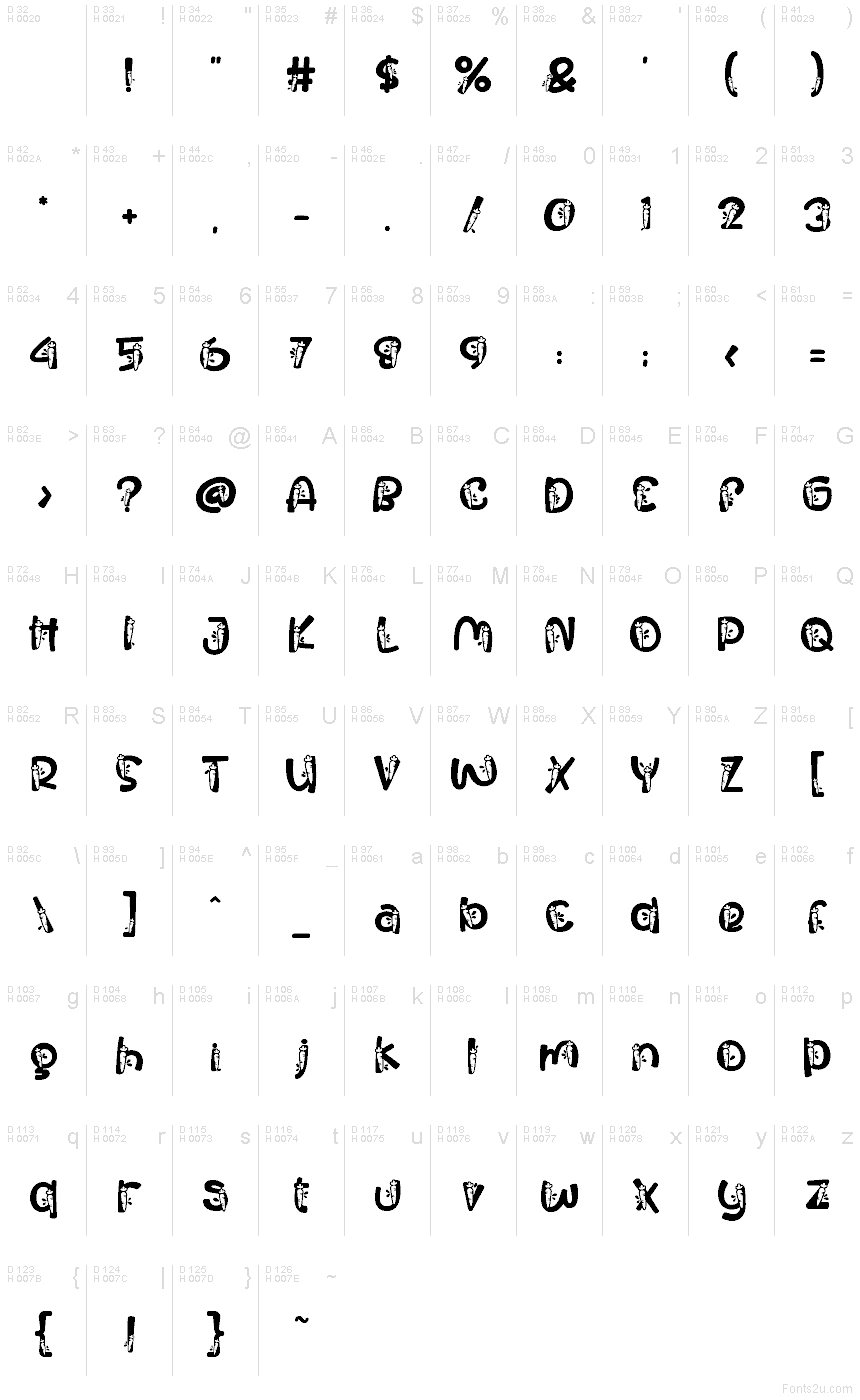
Pastel Palooza Carrot
Pastel Palooza Carrot font by PutraCetol Studio is a decorative and expressive display typeface with whimsical Easter aesthetics. Playful and lively with floral motifs, its letters and elements are creatively decorated for artistic end results. Its organic curves give it an adventurous vibe that sets it apart from traditional fonts.